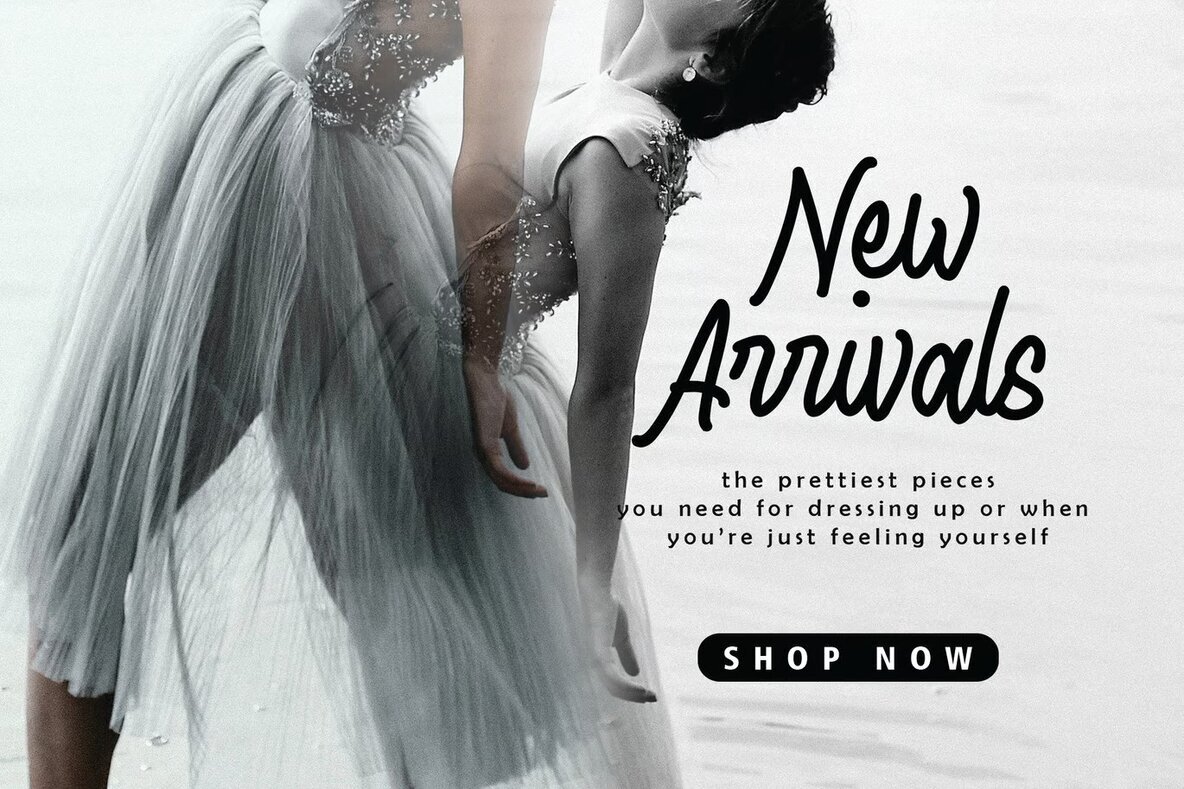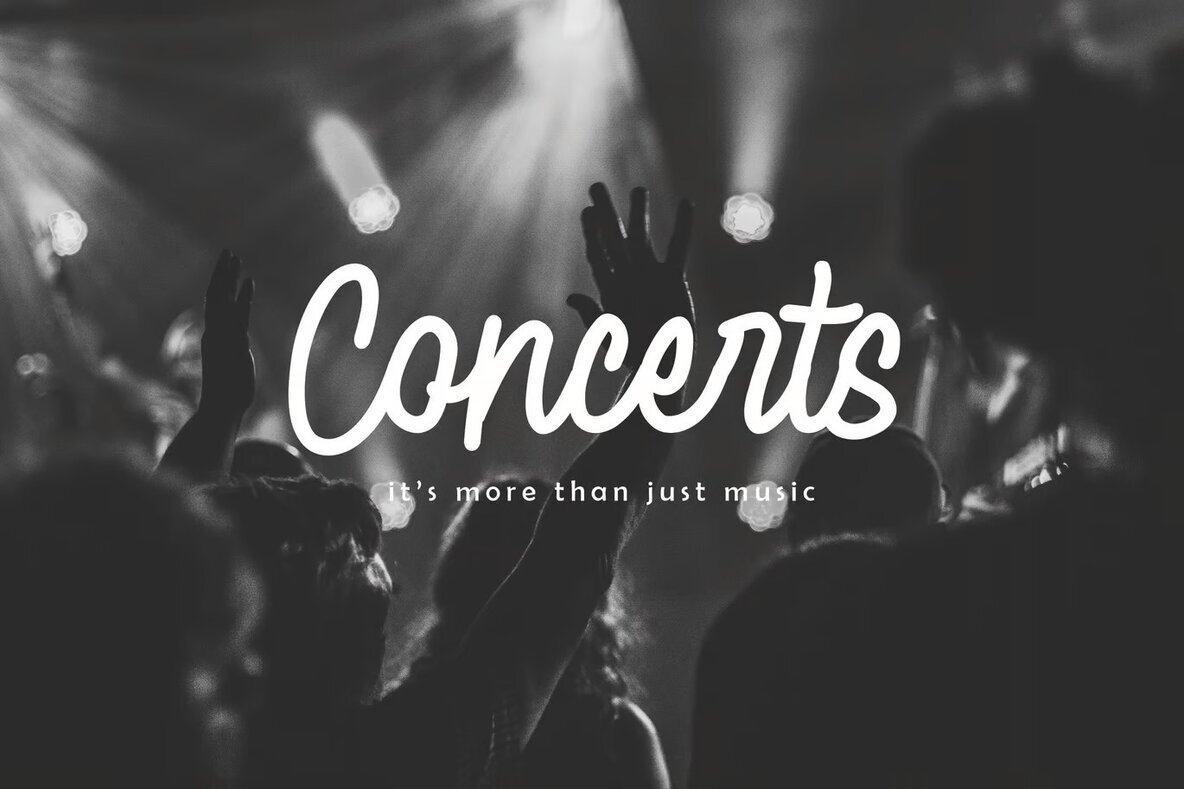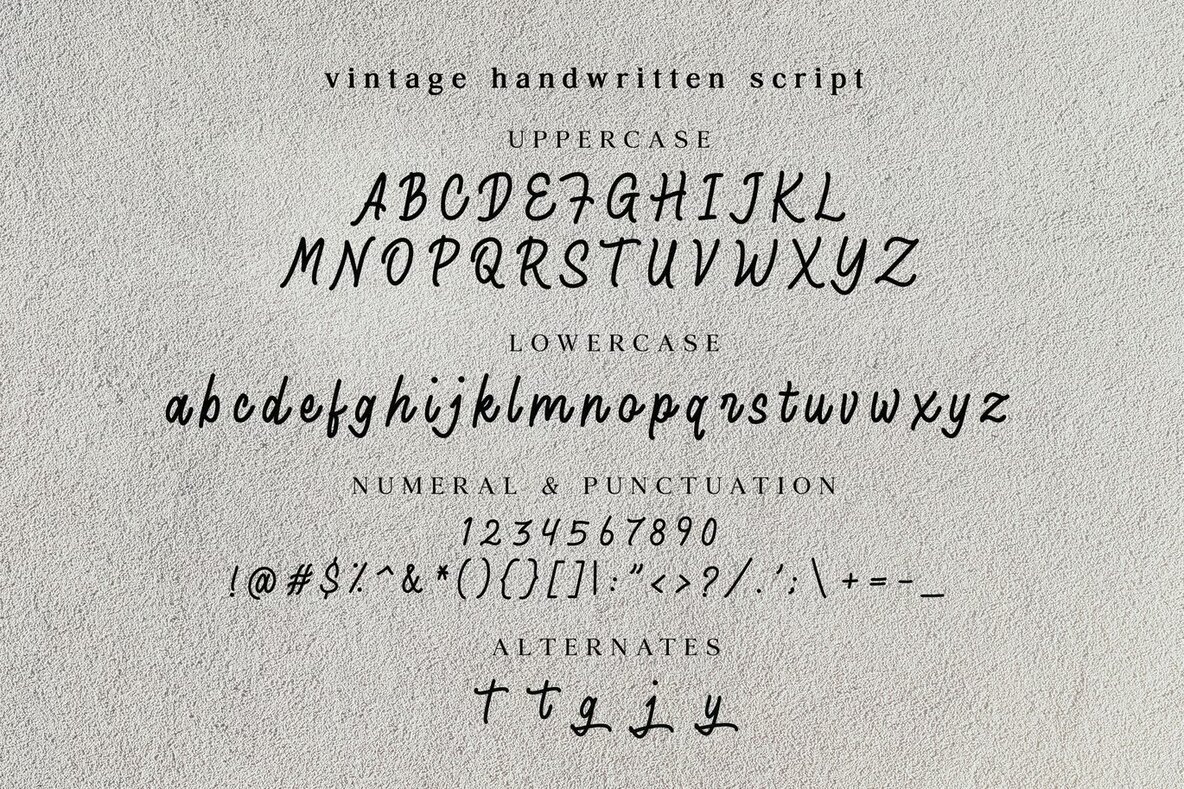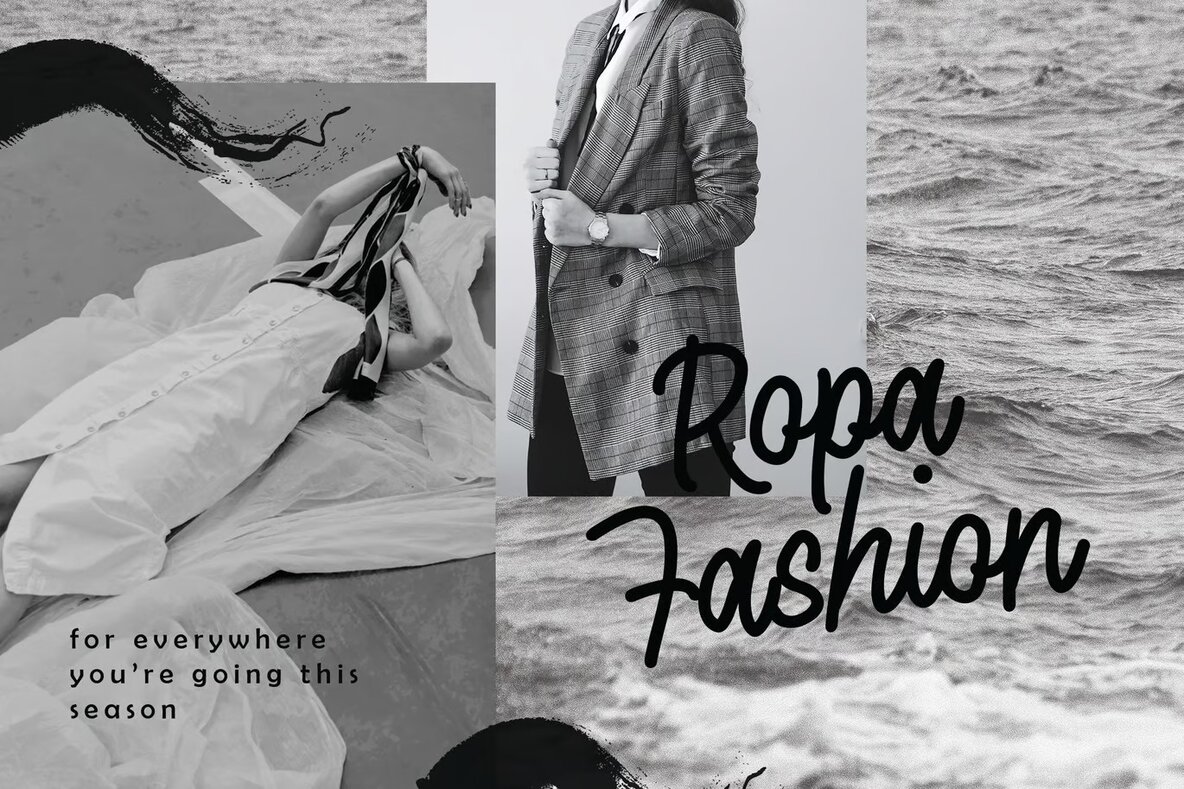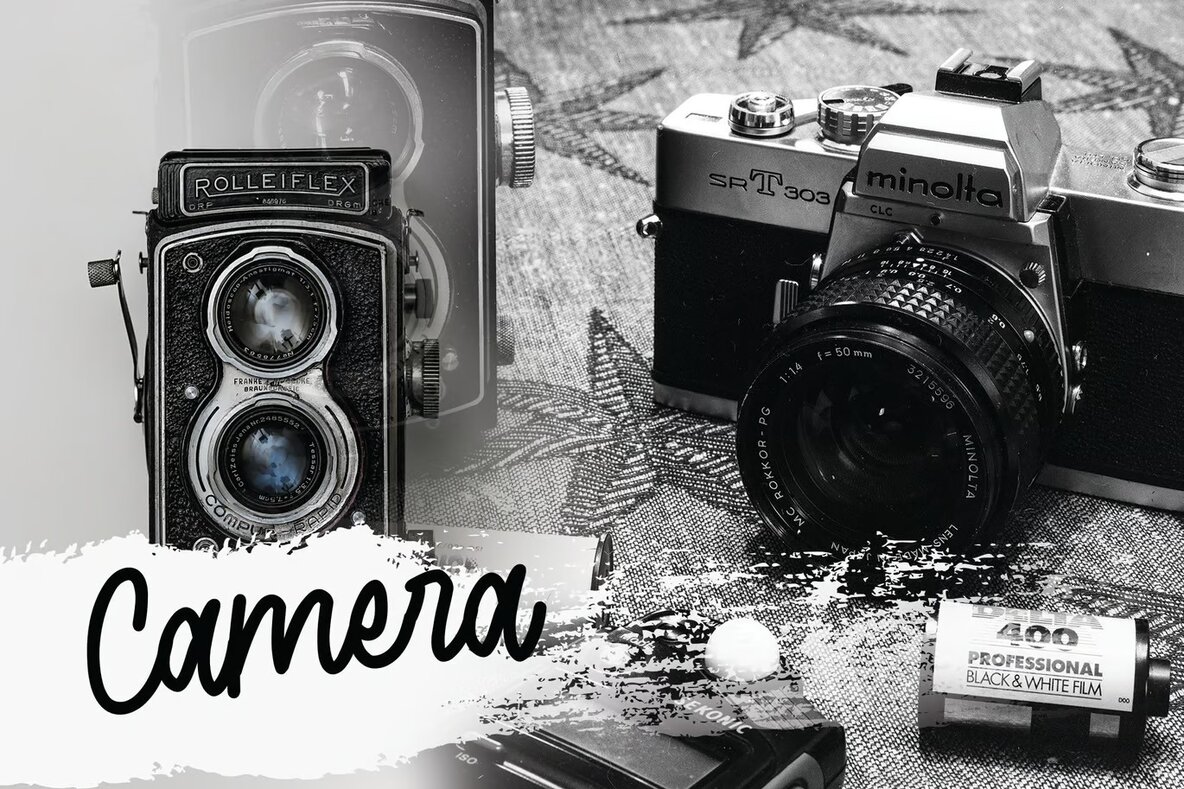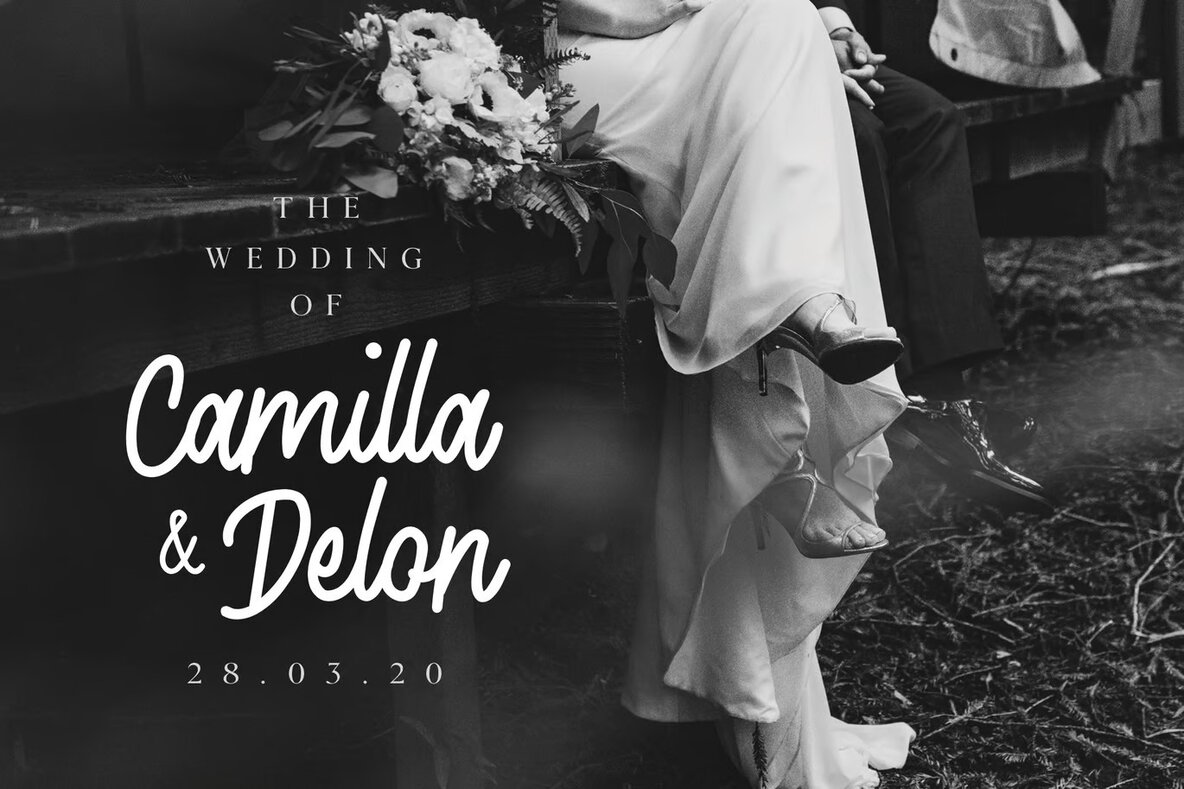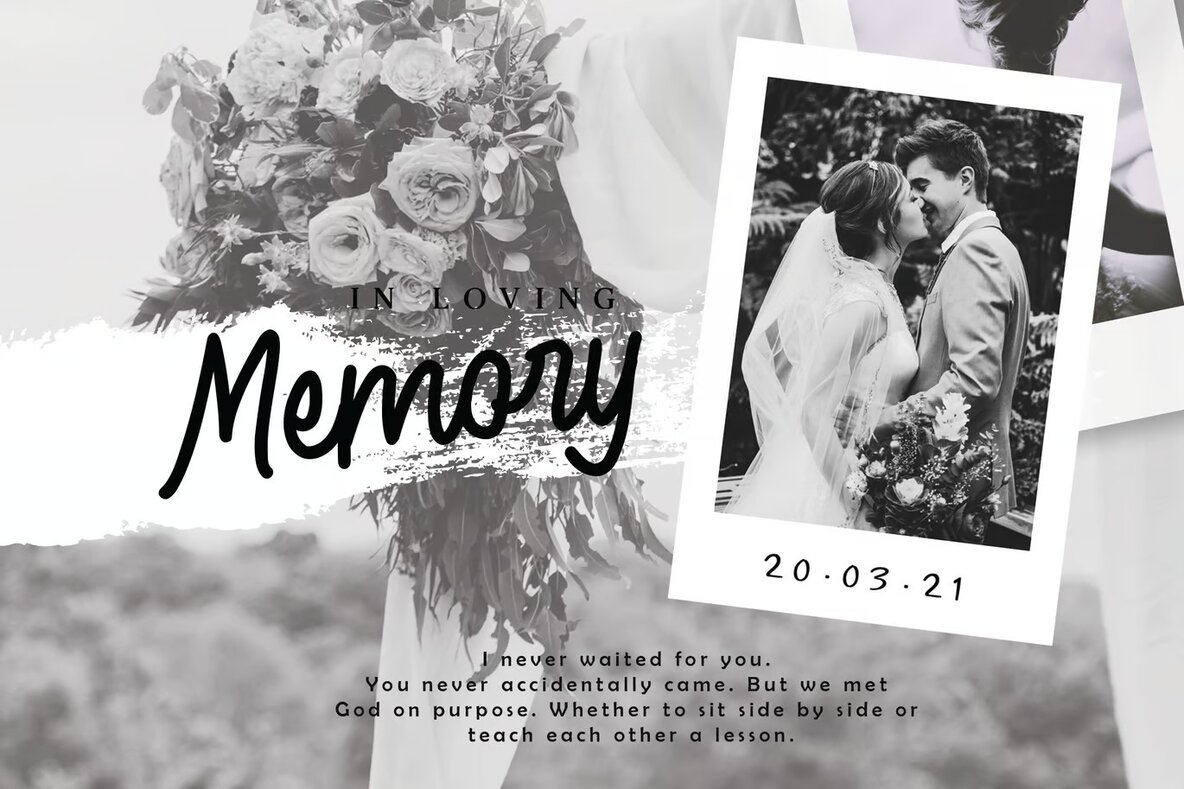
Sheylore Font
Sheylore is a vintage romantic handwritten font that captures the elegance and fluidity of monoline signature scripts. Ideal for a multitude of design projects, Sheylore's distinctive flow and approachable handwritten style make it perfect for wedding designs and feminine branding. From social media graphics to greeting cards, this font adds a personal touch to modern invitations, branding endeavors, and stationery designs.
This versatile script is an excellent choice for blog design, contemporary advertising, and special events like birthdays. Moreover, Sheylore is suitable for home decor items such as custom mugs and pillows, as well as apparel like t-shirts. Its charming and sophisticated style also works beautifully for art quotes, book covers, and signature font needs, ensuring it enhances any creative project seamlessly.